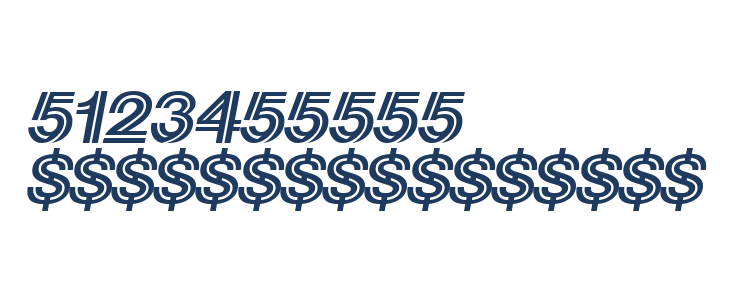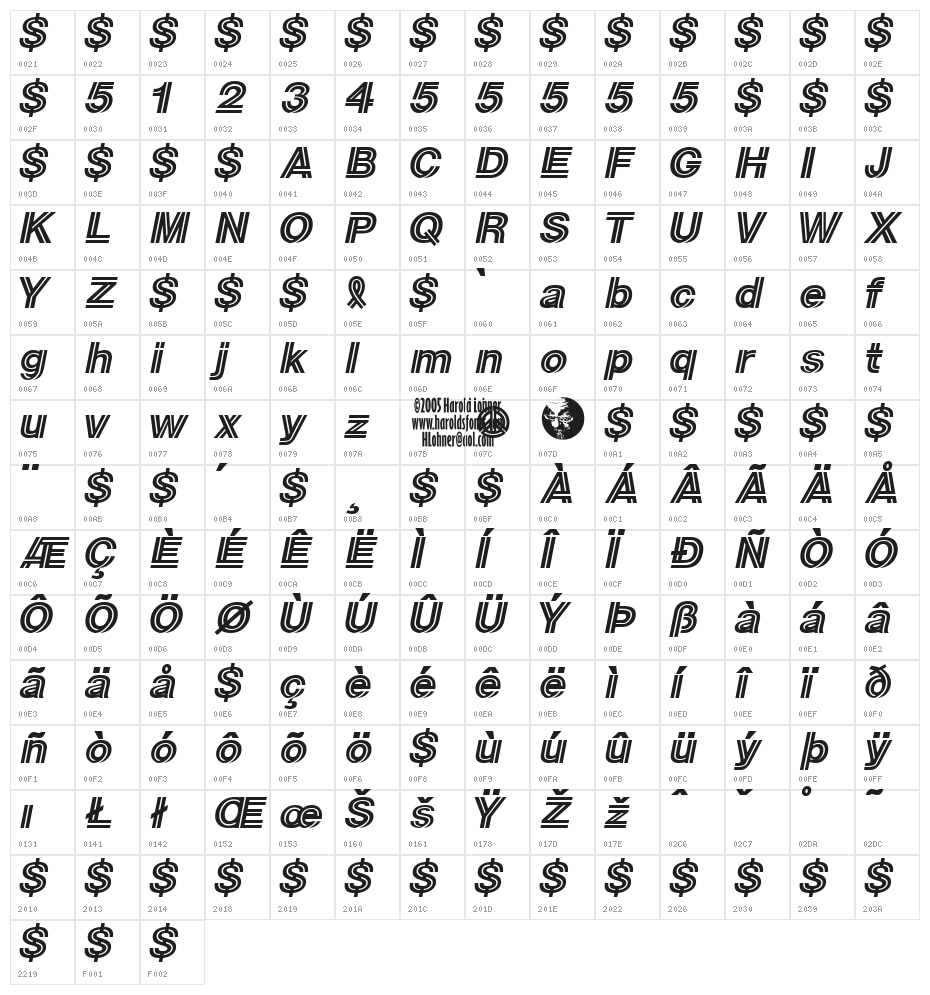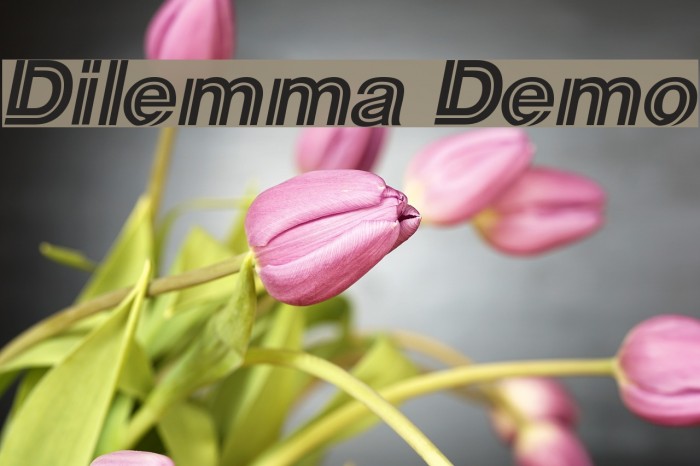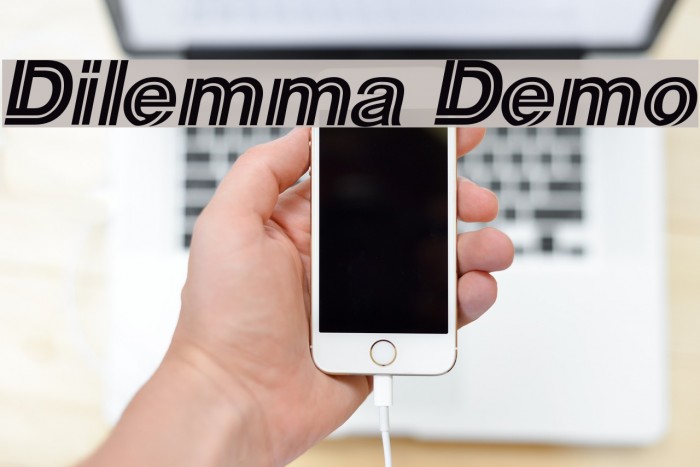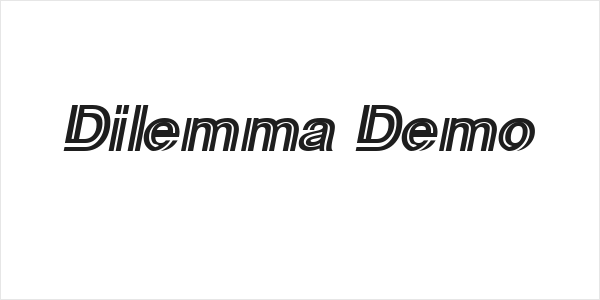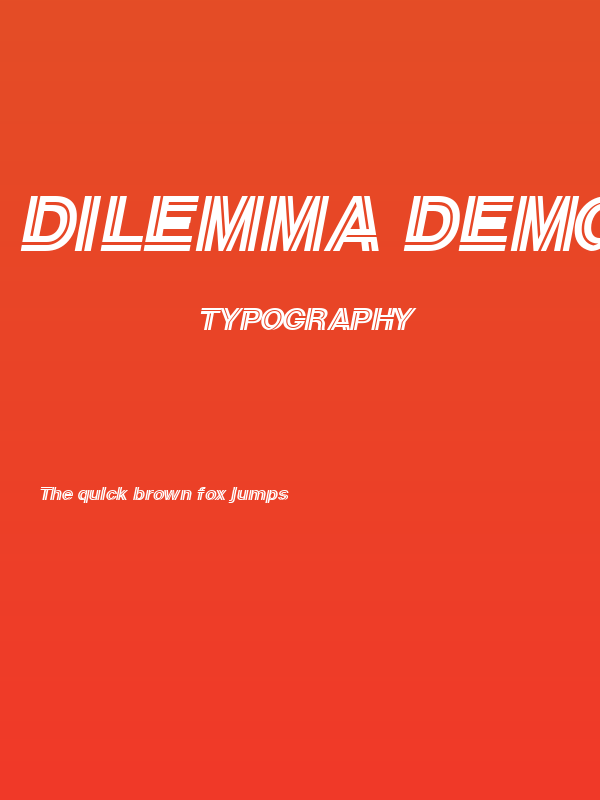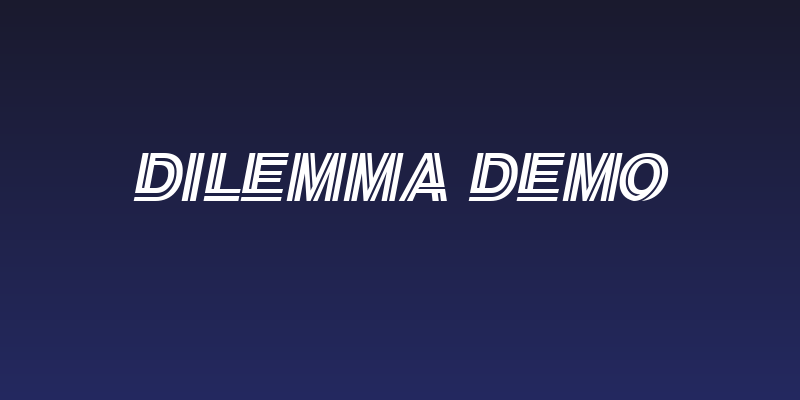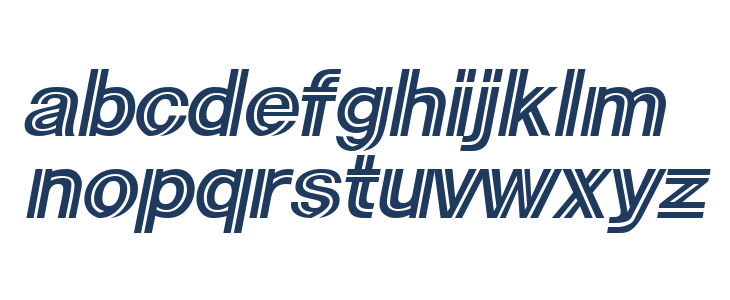
Dilemma Demo Font
Dilemma Demo Description
This font features a bold, italicized style with a distinct double-line shadow effect, giving it a dynamic and modern appearance. The uppercase and lowercase letters maintain a consistent slant, enhancing the italicized look. The numbers and special characters follow the same design, ensuring uniformity across all elements. The font's unique shadowing adds depth and a sense of movement, making it stand out in any design. Its clean lines and structured form make it versatile for various applications, while the shadow effect adds a touch of creativity and flair.
| Proposed Projects | Ideal for branding, posters, headlines, and any design requiring a bold statement. |